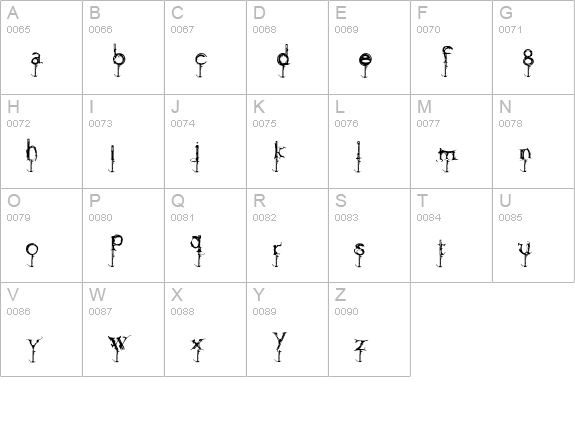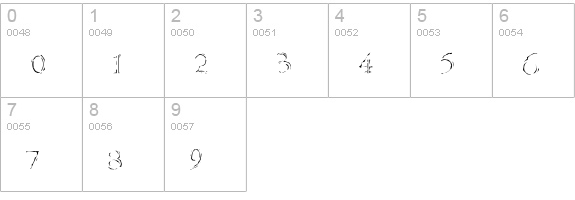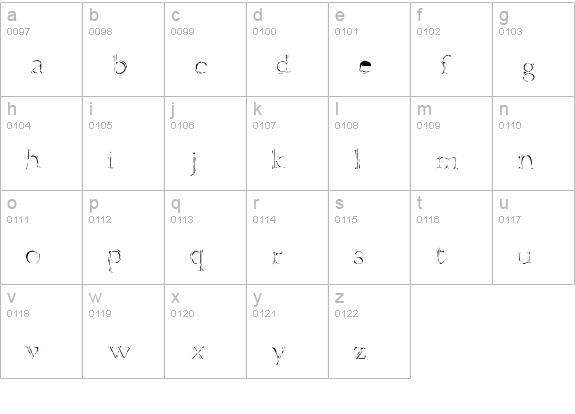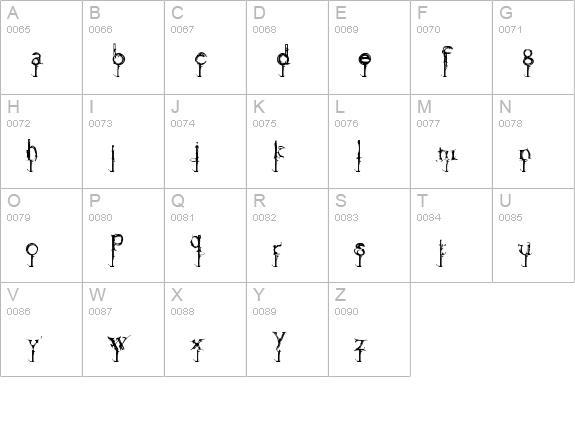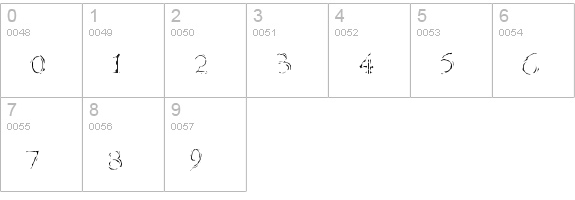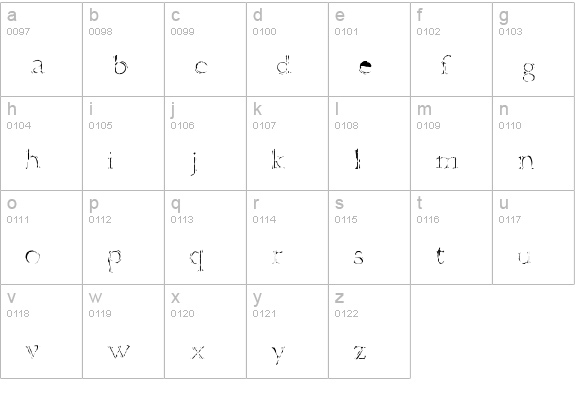
Finial-EatenA Font Details
Finial-EatenA is a unique and elegant font that combines classic sophistication with a modern twist. With its intricate details and stylish flourishes, this font is perfect for adding a touch of luxury to your design projects. The graceful curves and sharp angles of Finial-EatenA create a sense of beauty and refinement that will elevate any text or headline. This exquisite font is available for free download at FontsMarket.com, making it accessible to designers and creatives looking to enhance their work with a touch of sophistication. Whether you're working on a branding project, a wedding invitation, or a magazine layout, Finial-EatenA is sure to make a lasting impression with its timeless charm and effortless style. Embrace the beauty of Finial-EatenA and bring a touch of elegance to your designs today. Download this stunning font for free at FontsMarket.com and unlock a world of creative possibilities.